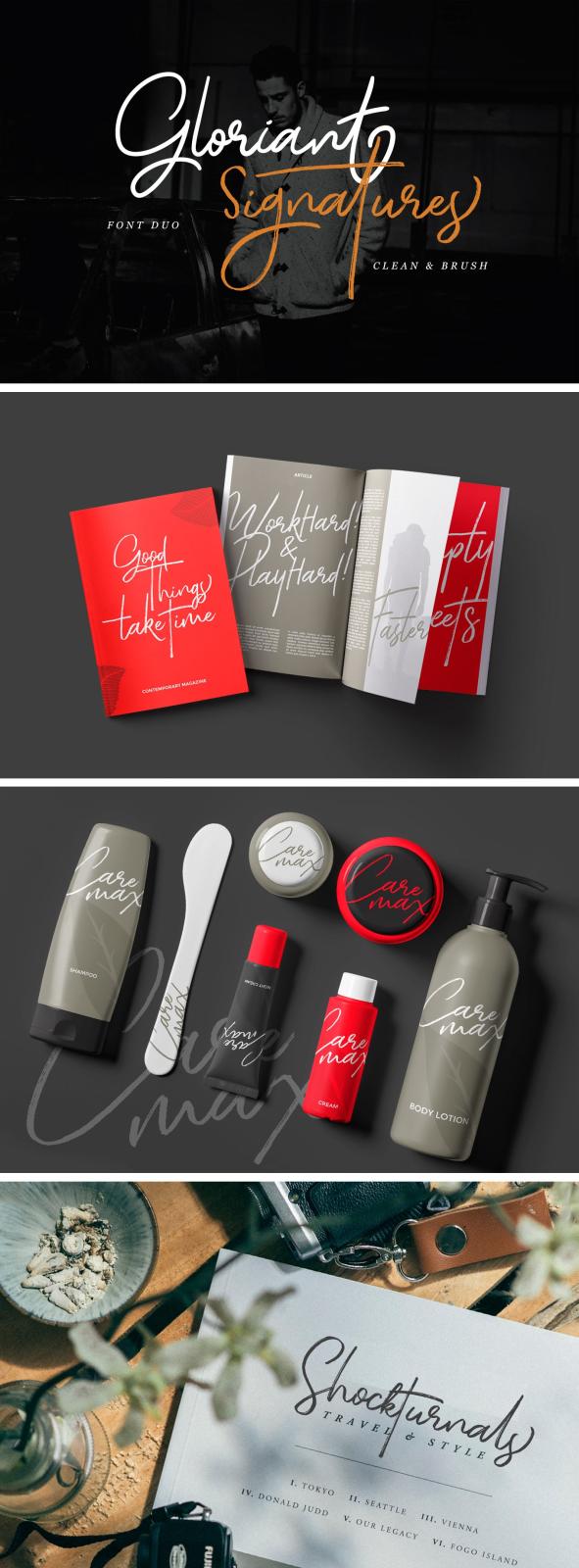
Gloriant Signature Font Duo
Discover a font duo, bringing lightness and cleanliness of the modern typography trends. With its clean and brush variations at hand, be sure to transform your everyday projects into works of art.
Gloriant comes with wide OpenType features like ligatures, stylistic & contextual alternates, swashes, and, sure thing, multi-language support for international projects you feel like launching. The authors complemented your toolbox with a smart solution for such design purposes as logos, headlines, quotes, stationery, wedding invitations, and, of course, transform your digital signature into a work of art.